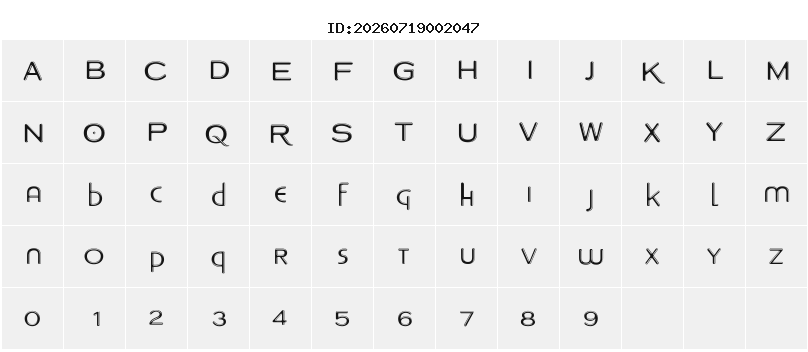
Copperplate Modern Light Chrome Preview
• Font Name: Copperplate Modern Light Chrome
• PostScript Name: CopperplateModernLightChrome
• Manufacturer: Gert Wiescher, Wiescher-Design, Munich, Germany, www.wiescher-design.de
About Copperplate Modern Light Chrome.ttf
Copperplate Modern Light Chrome.ttf is a modern, elegant sans-serif font designed for ultimate readability and visual harmony. Perfect for branding, headlines, web design, and print materials.